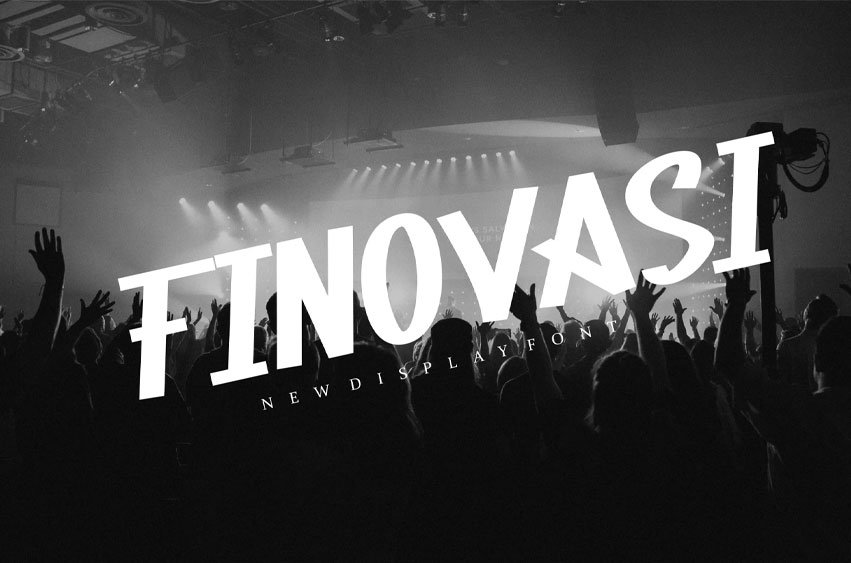
Finovasi Font Modern Font is a bold and authentic display font. The font is suitable for any branding project like logo, t-shirt printing, esport, and many more.
outstanding in a wide range of contexts.